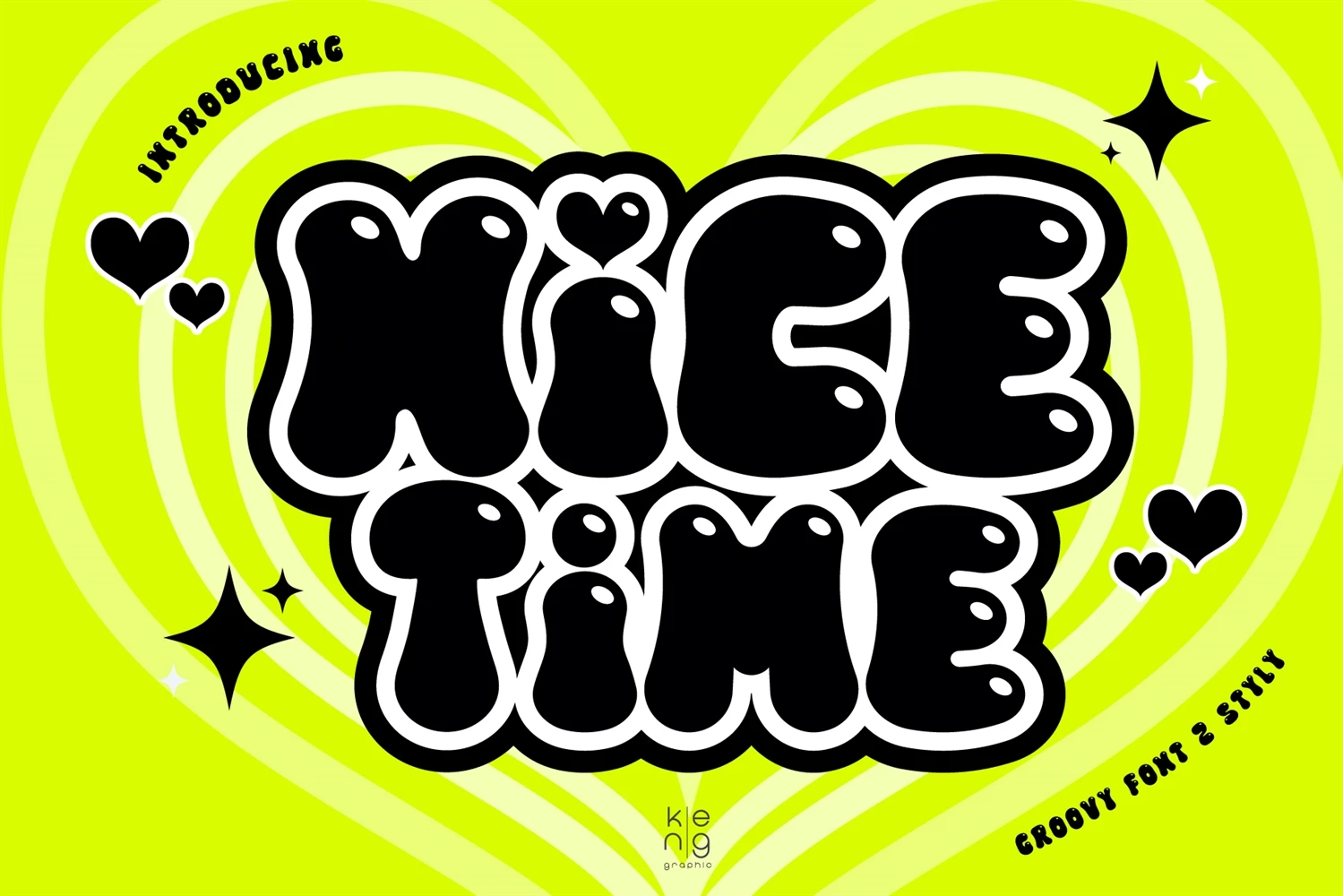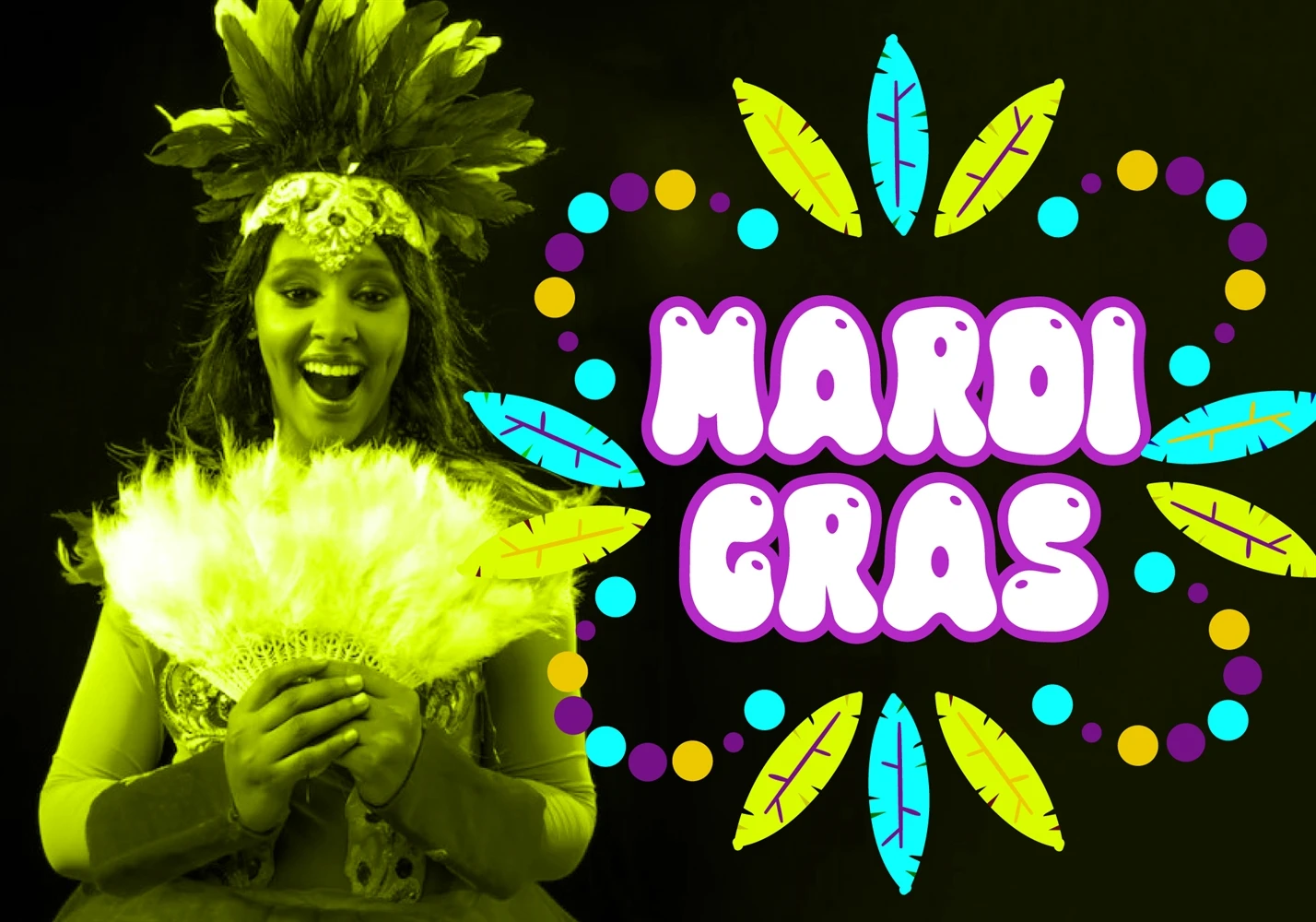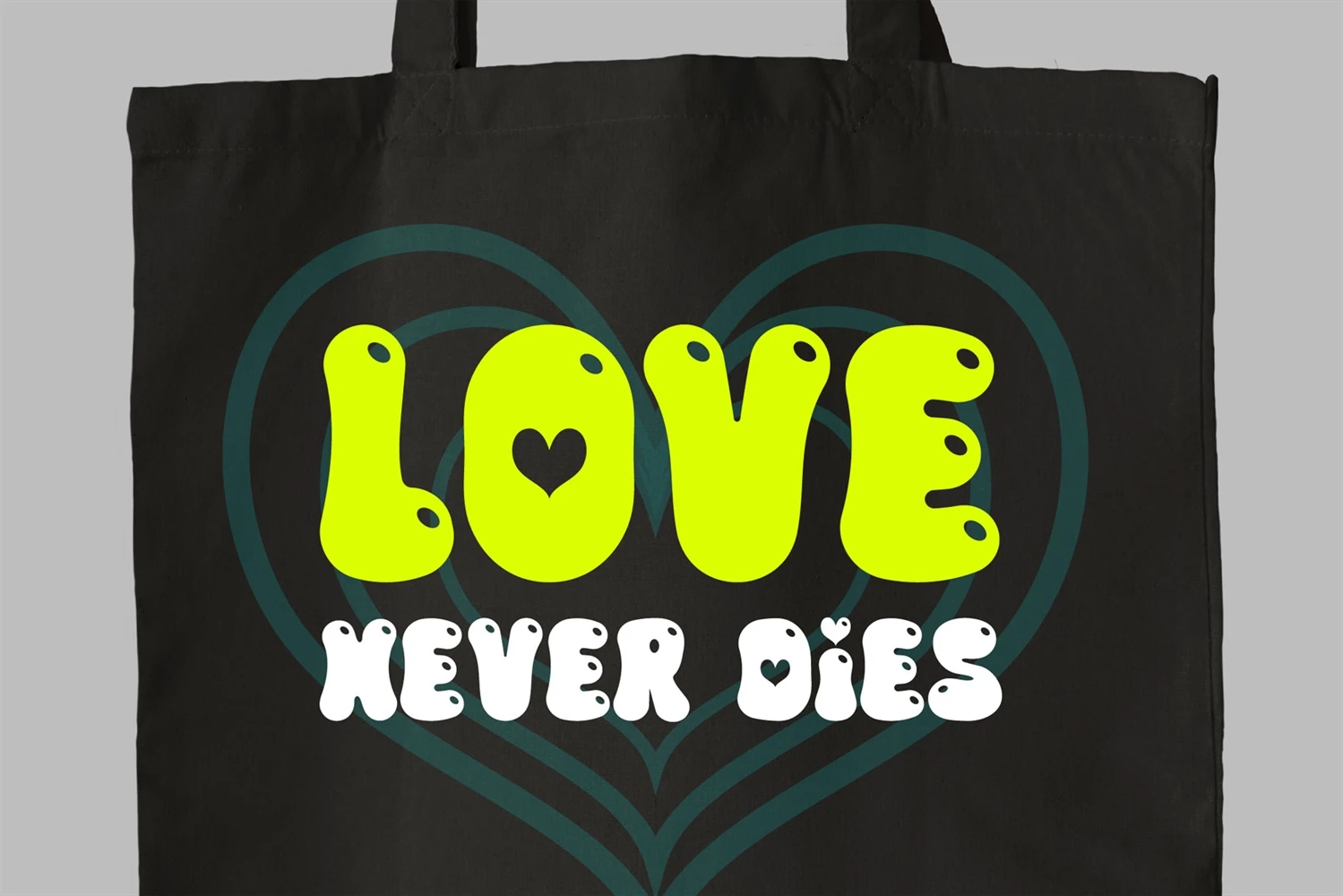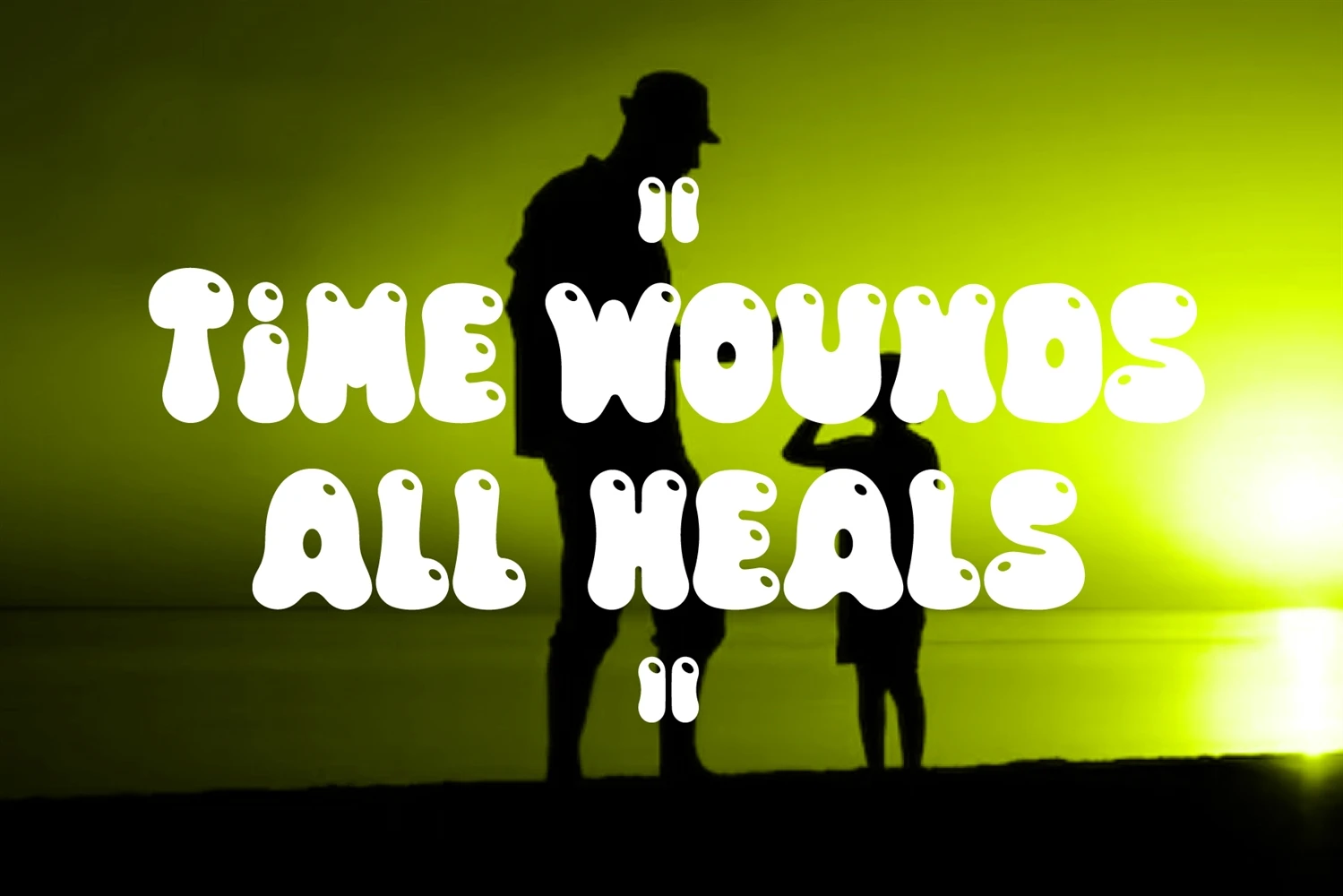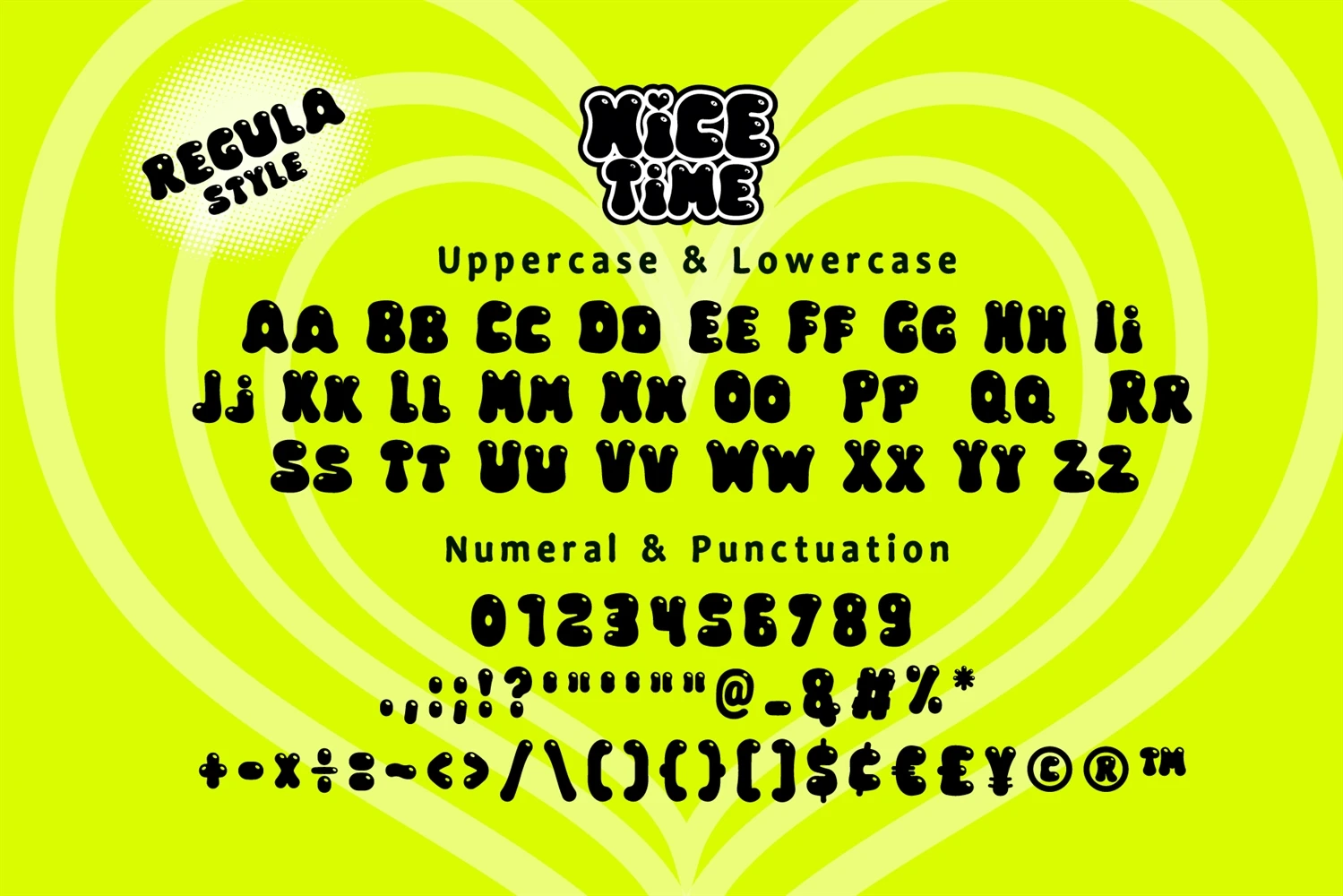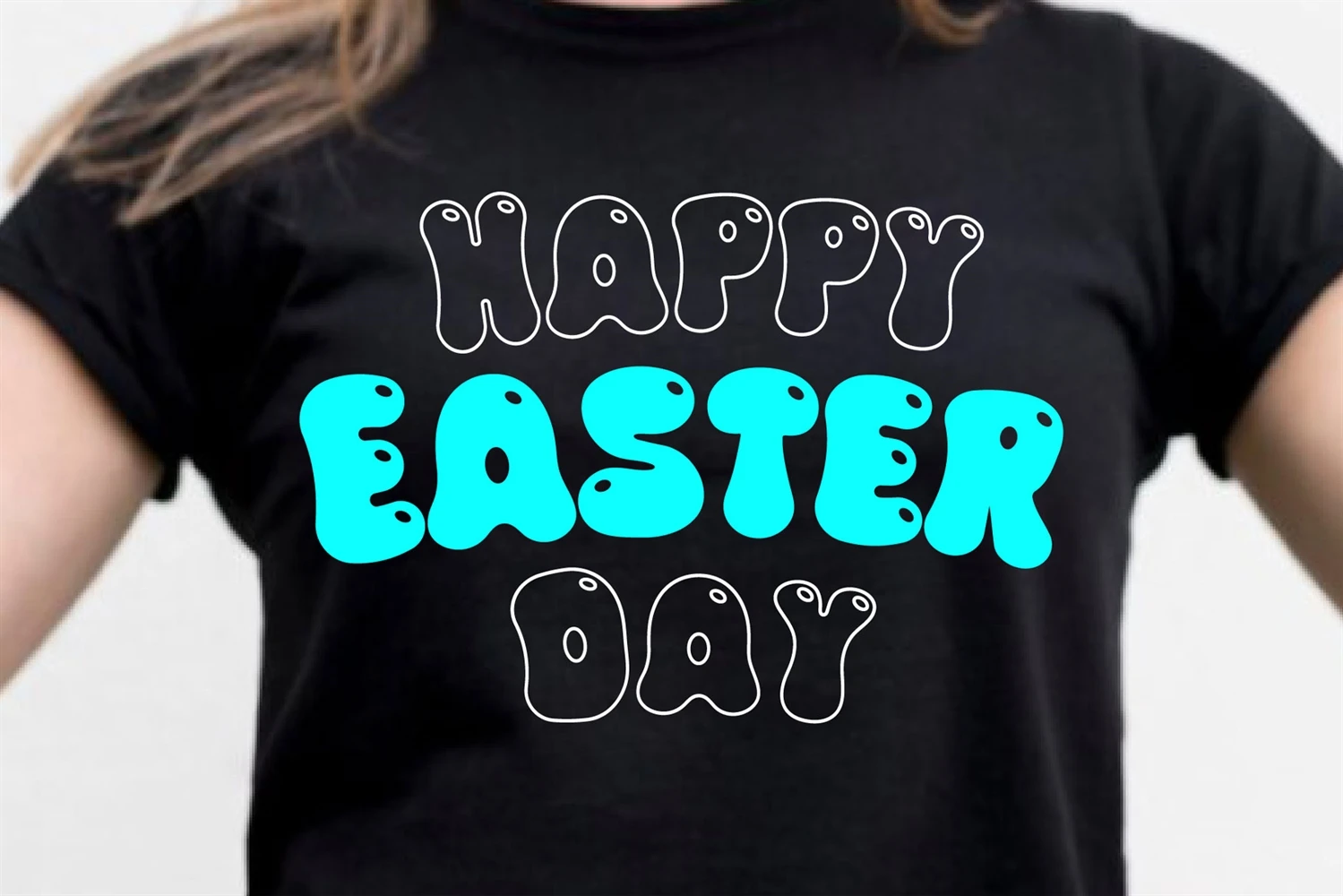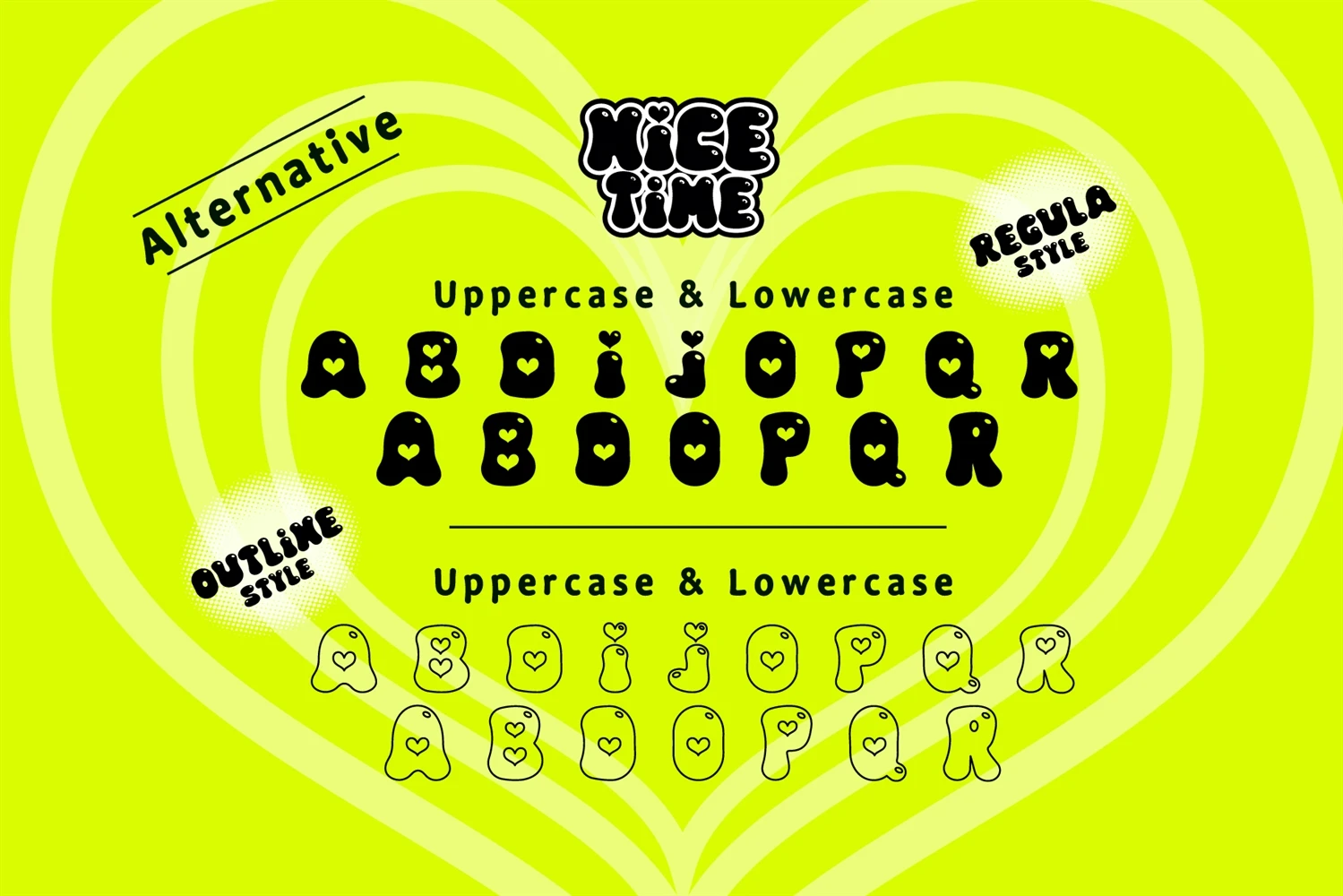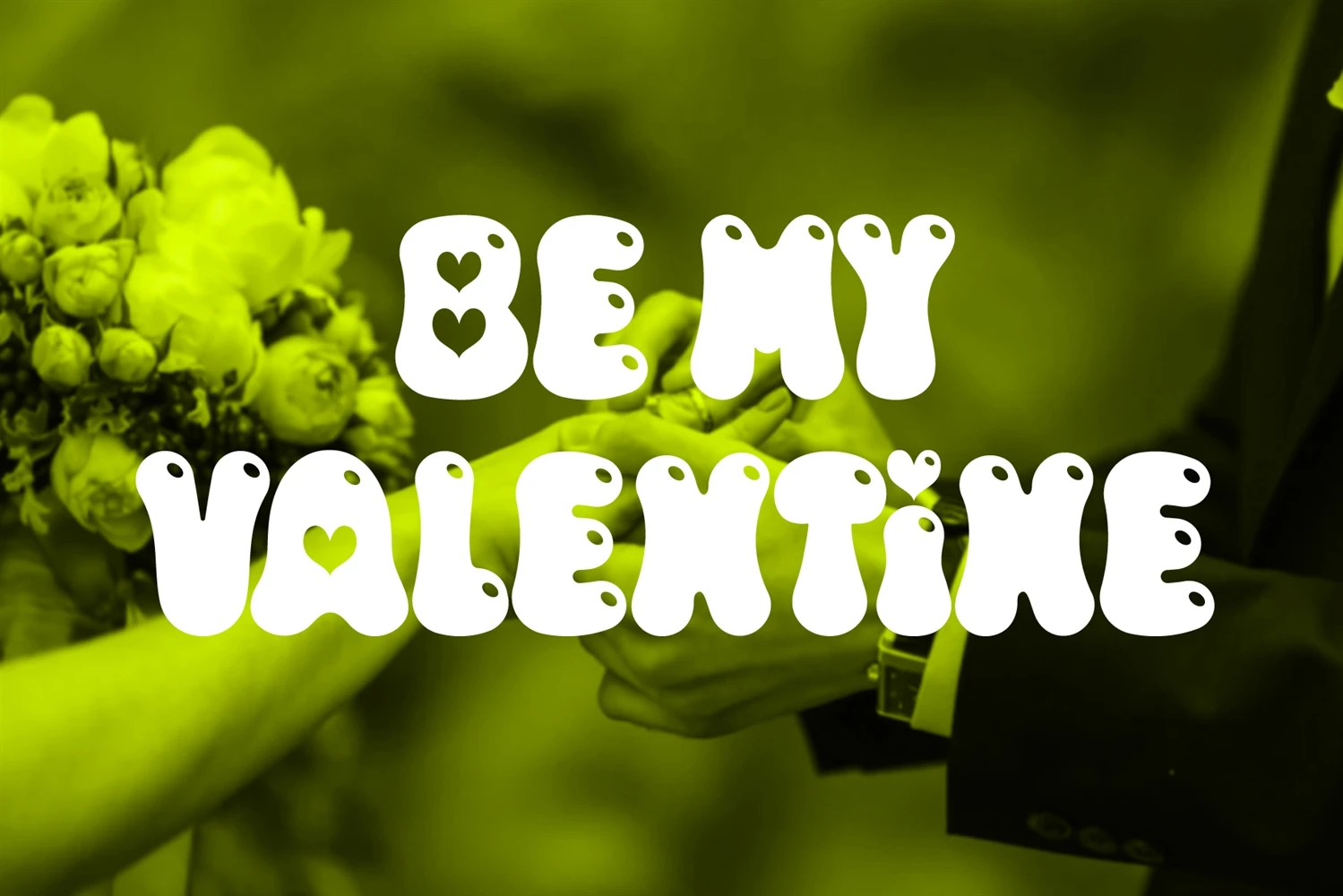
Nice Time is a bold and chunky display font with a great punch. Everything written in this font will be instantly recognizable and will attract attention.